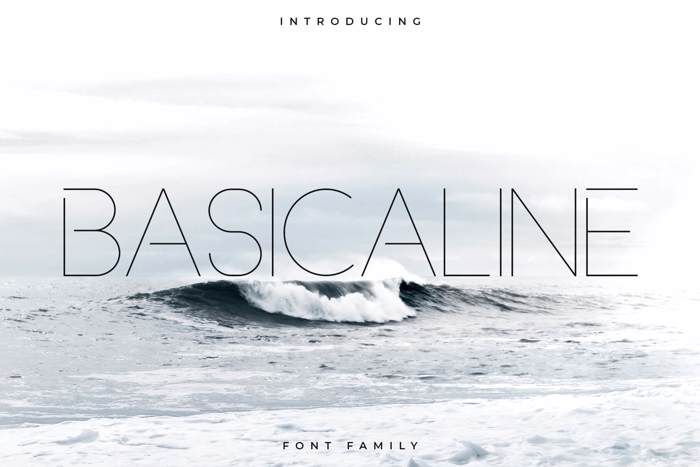
Basicaline Font
Introducing Basicaline - Sans Serif Font
Basicaline is an elegant and clean sans serif font. It's a versatile font family designed for strong, classic branding. Basicaline works great in any branding, logos, magazines, videos, product packaging, website headers, clothing designs and much more.